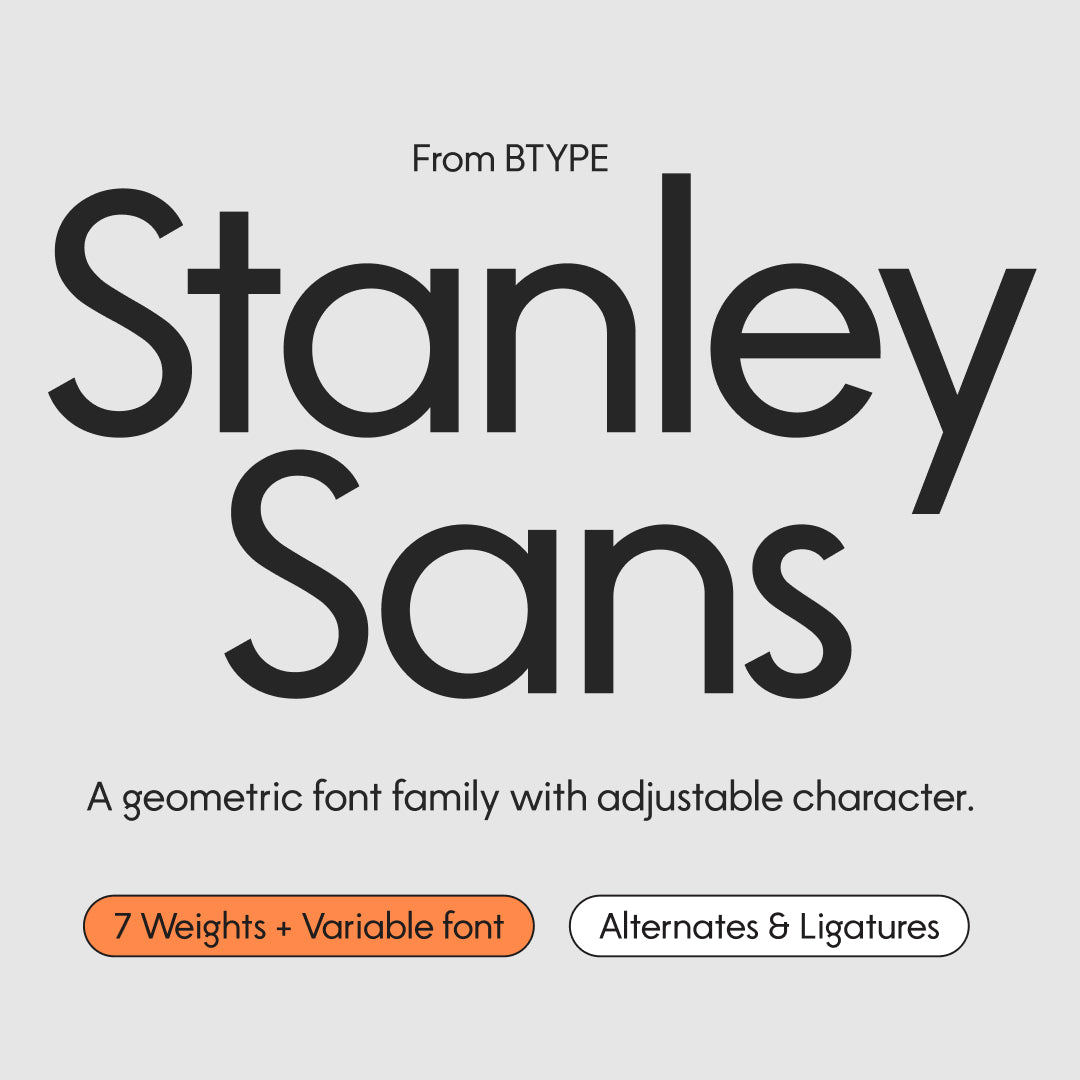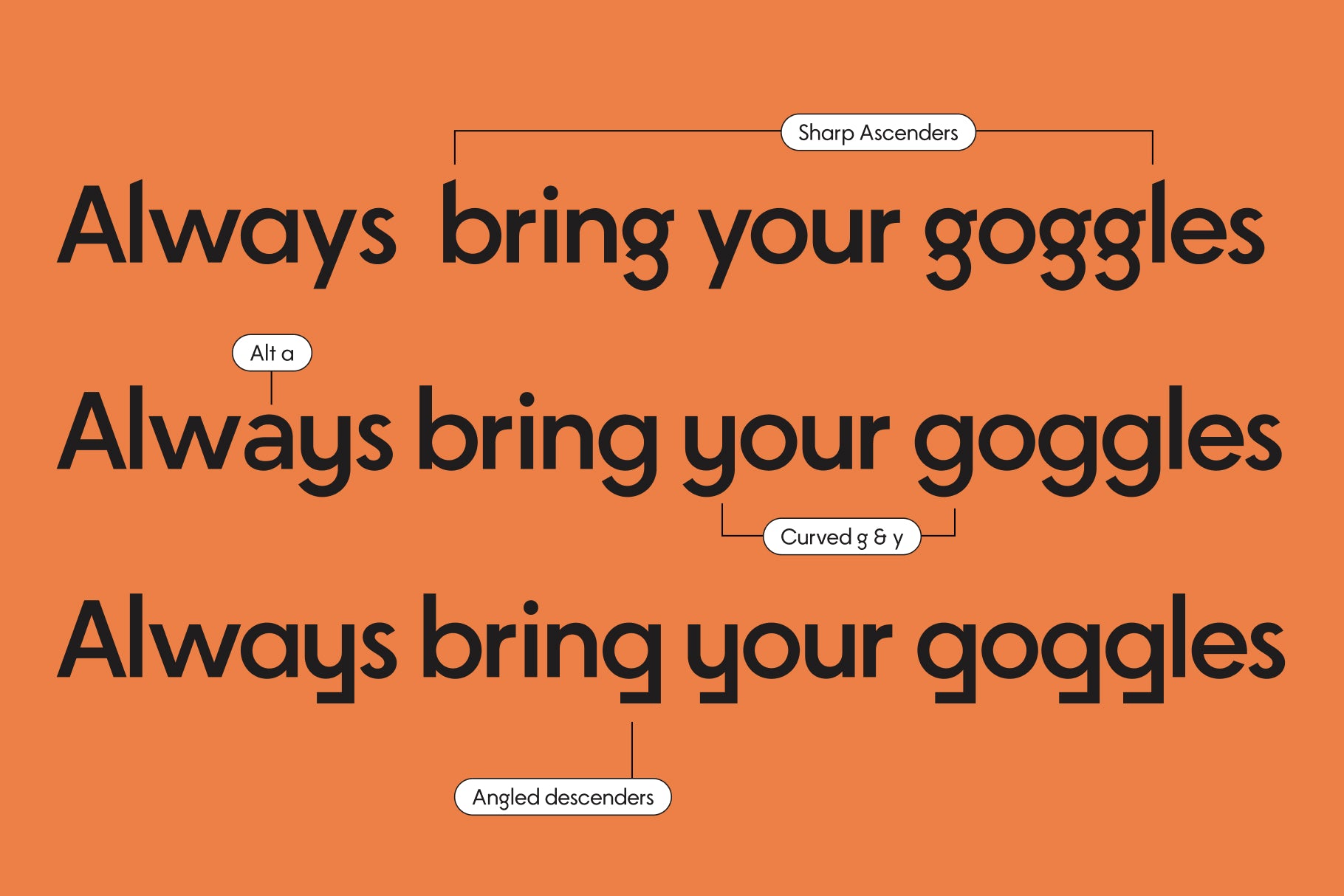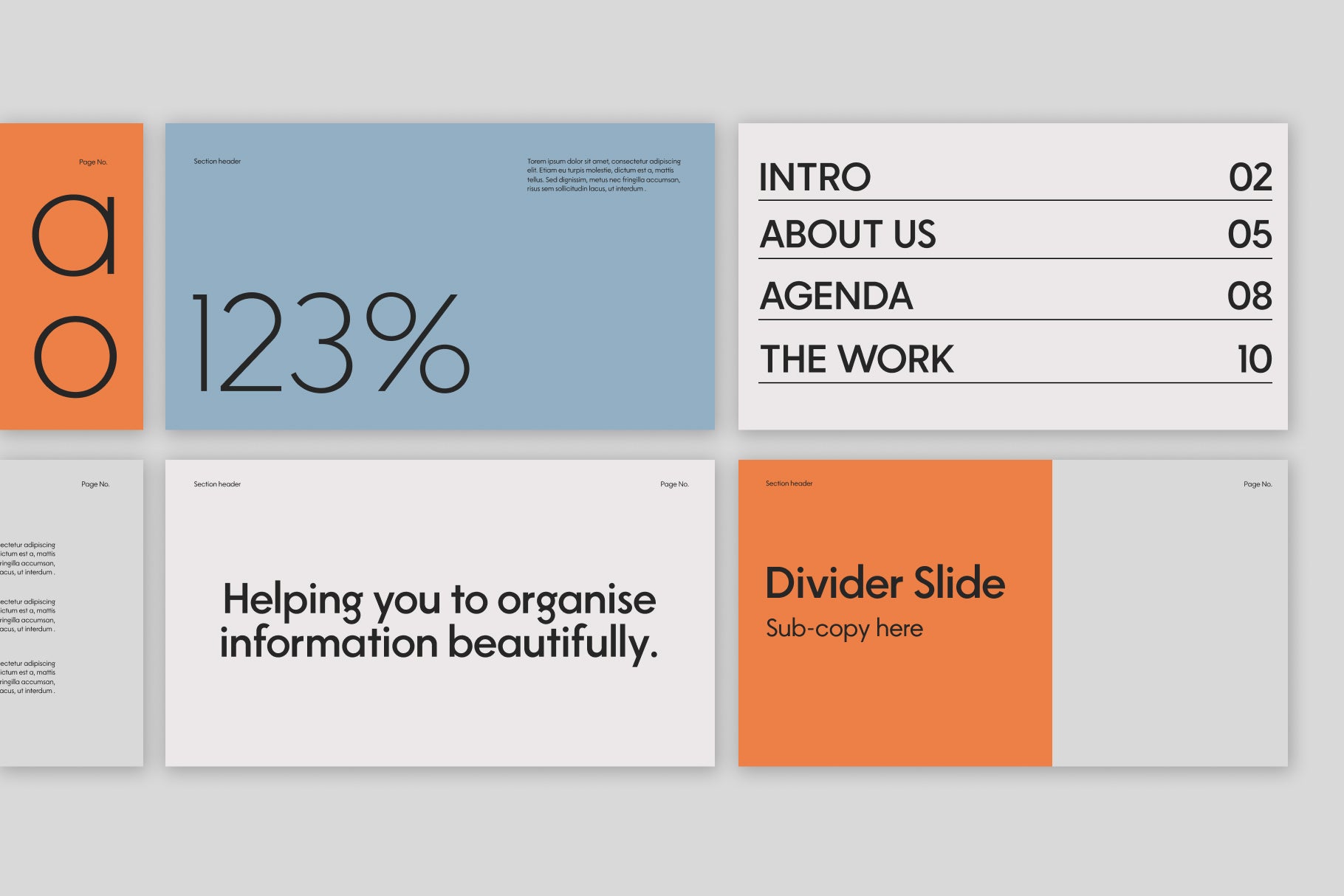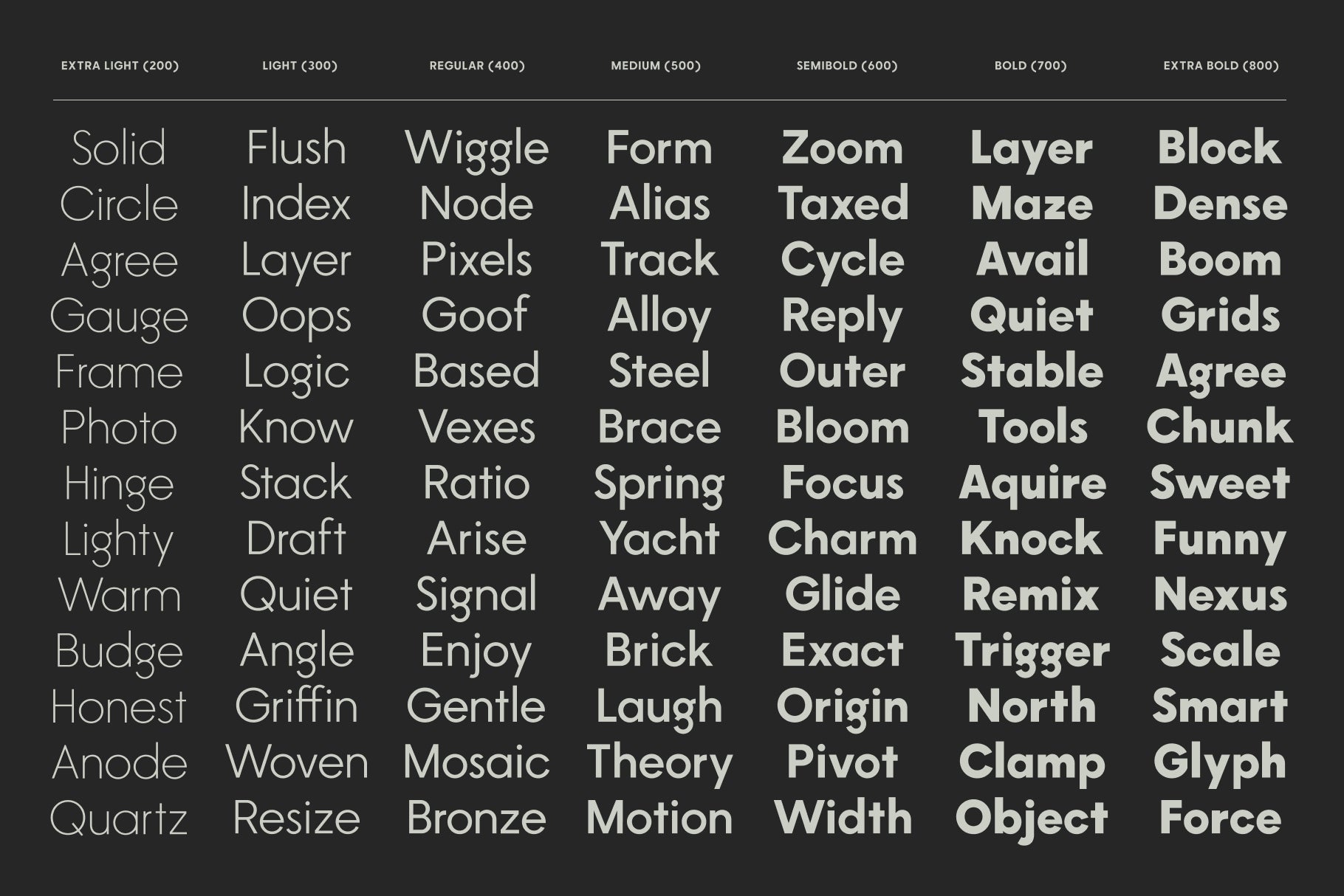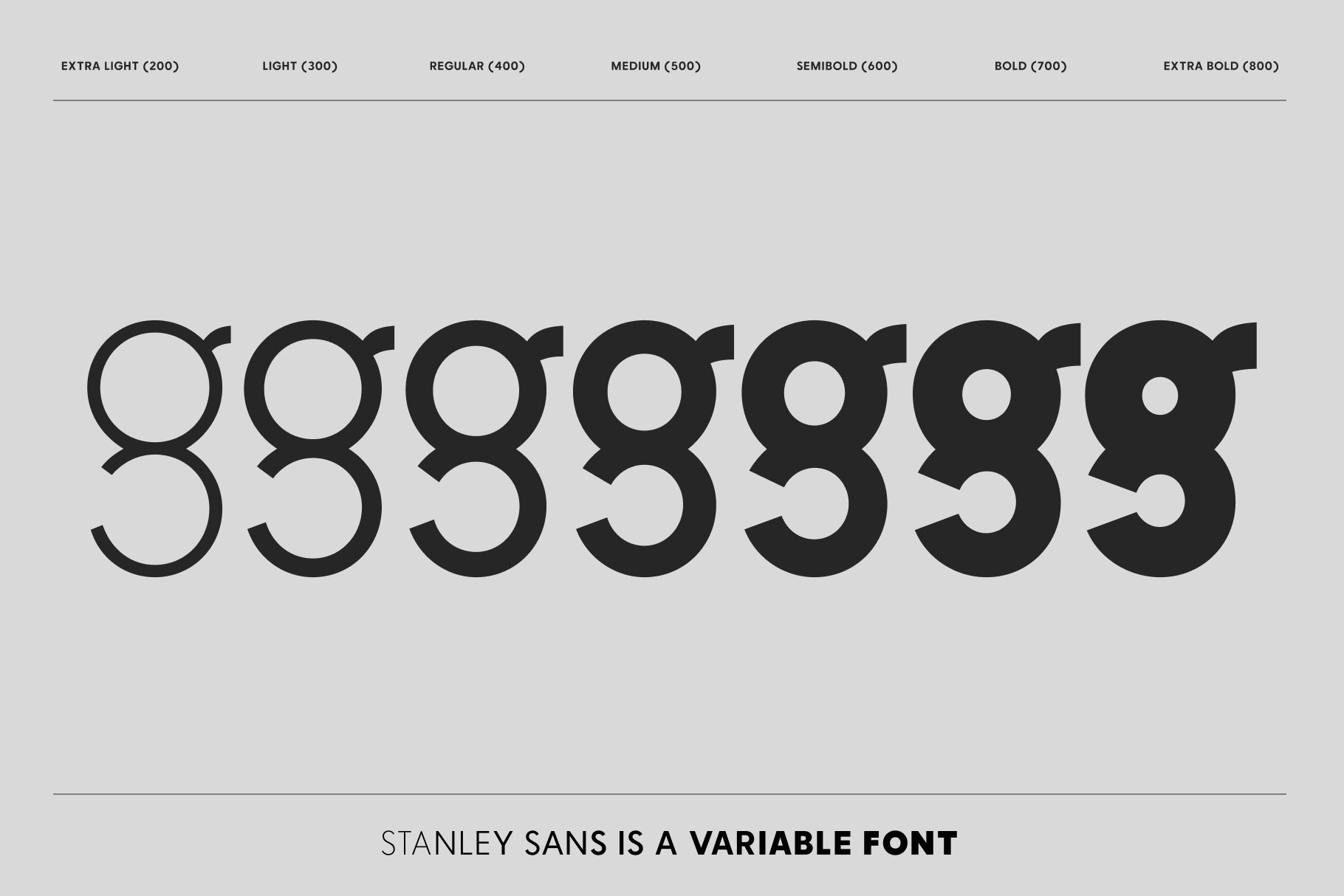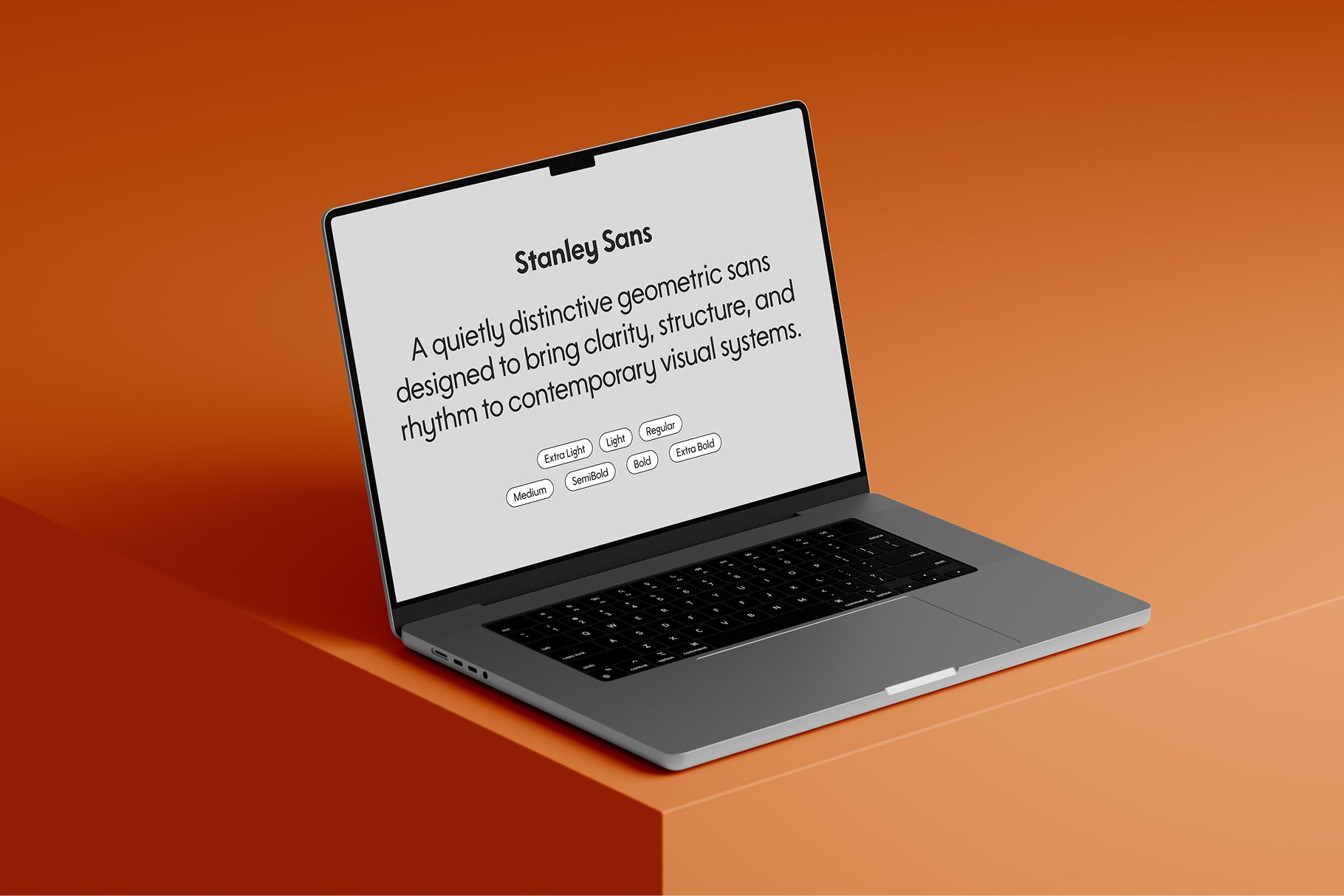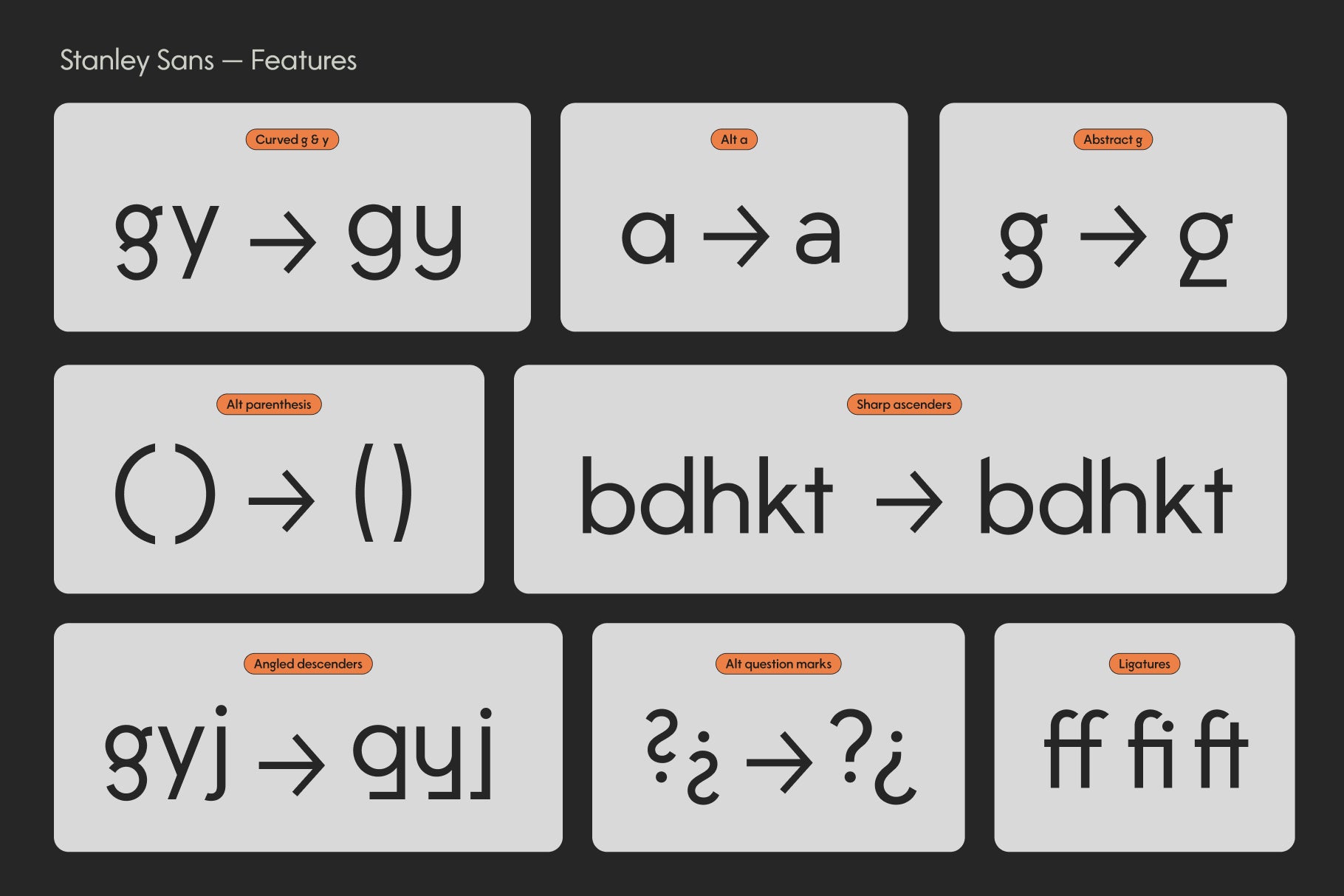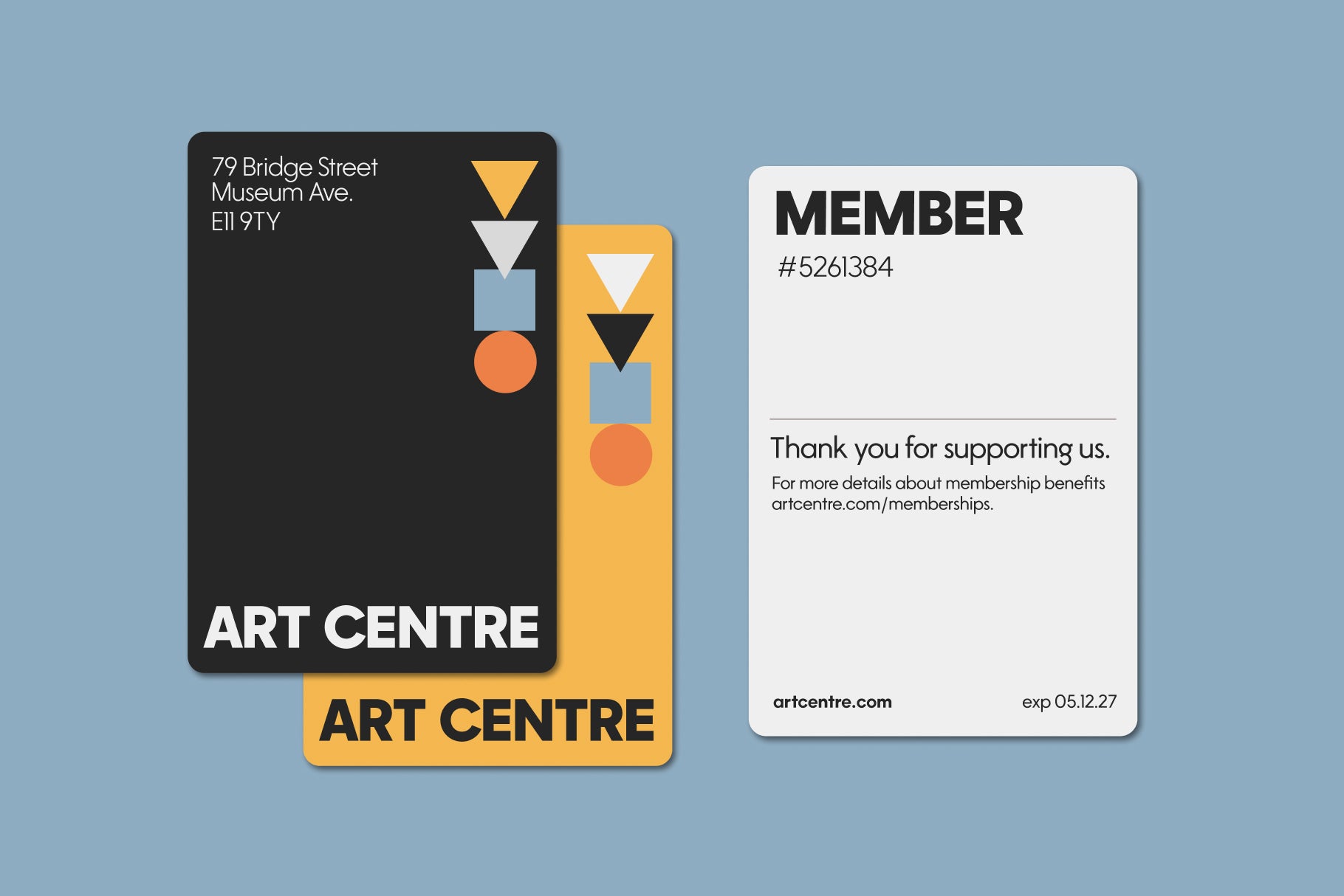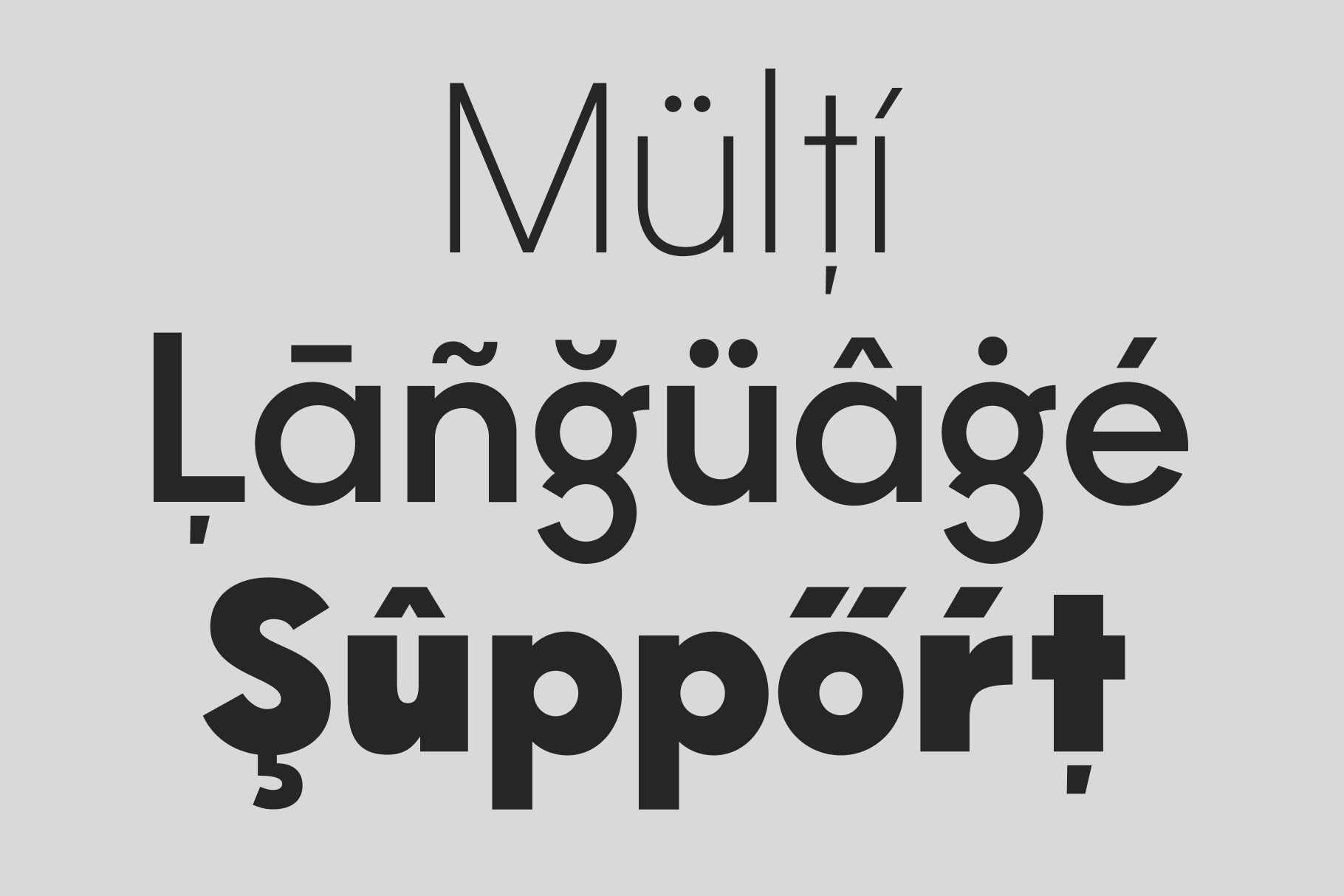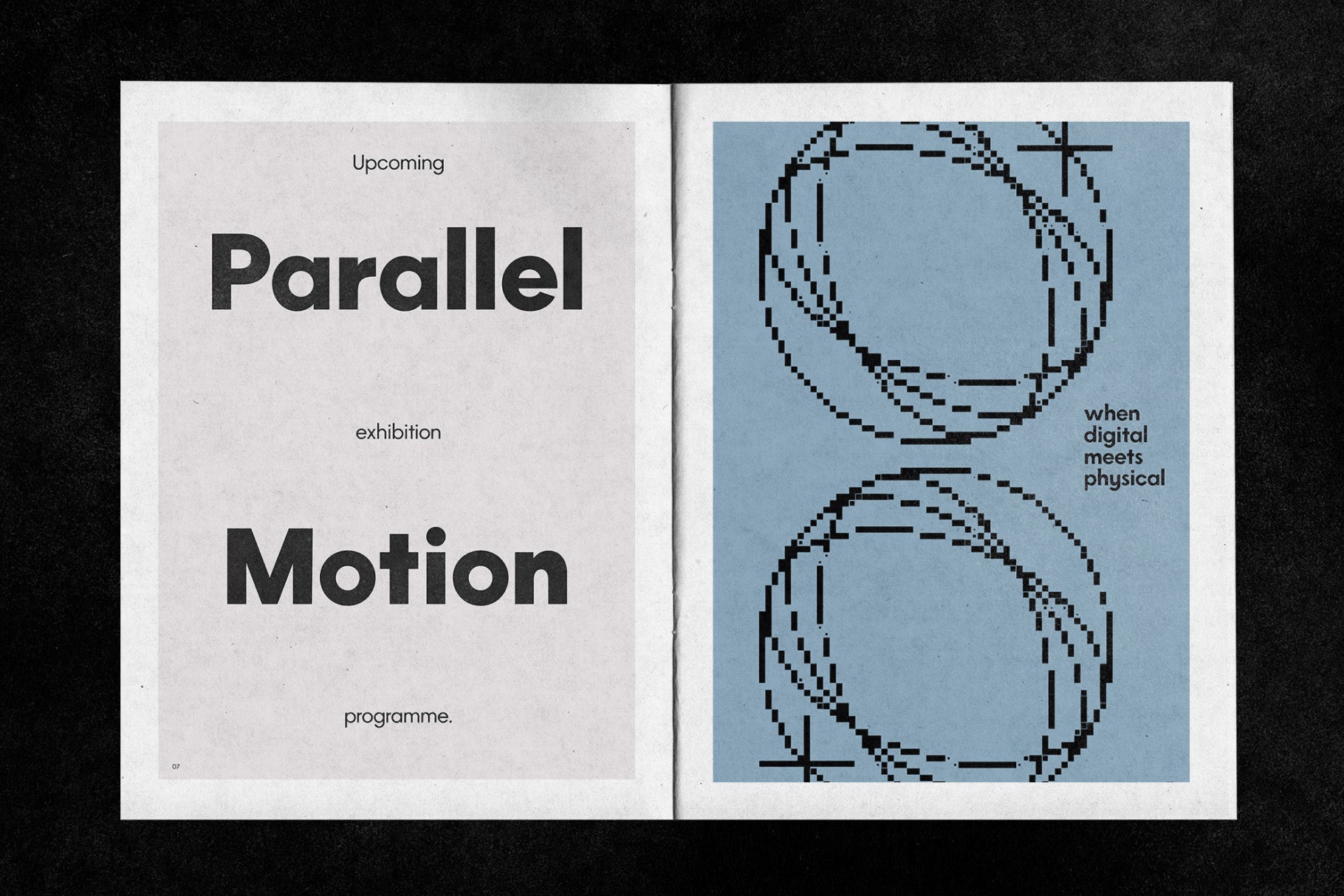
Stanley Sans Geometric Variable Font
BTYPE
Stanley Sans is a geometric sans serif designed to bring clarity, rhythm and quiet personality to contemporary visual systems.
Built with flexibility in mind, Stanley balances clean geometric structure with subtle warmth and adjustable character. A distinctive alternate-driven design system allows the typeface to shift between neutral and expressive, making it equally suited to editorial layouts, visual identities, presentation systems, packaging and digital interfaces.
From restrained modernist layouts to more playful brand applications, Stanley Sans is designed to organise information beautifully while maintaining a confident and approachable tone.
The family includes 7 weights from Extra Light to Extra Bold, alongside a fully functional variable font for fluid typographic control across print and digital environments.
• 7 Weights (Extra Light → Extra Bold)
• Variable Font Included
• Alternates & Ligatures
• Fractions
• Superscript & Subscript Numerals
• Extended Latin Language Support
Stylistic Sets
• Curved g & y
• Angled Descenders
• Abstract g
• Double-Story a
• Sharp Ascenders
• Narrow Parentheses
• Alternative Question Marks
Stanley Sans is a geometric sans serif typeface that offers a clean and flexible design with 7 weights ranging from Extra Light to Extra Bold, along with a fully functional variable font for versatile typographic control. It includes features such as uppercase and lowercase letters, alternates, ligatures, fractions, superscript and subscript numerals, and extended Latin language support, available in OTF, TTF, and variable font files.